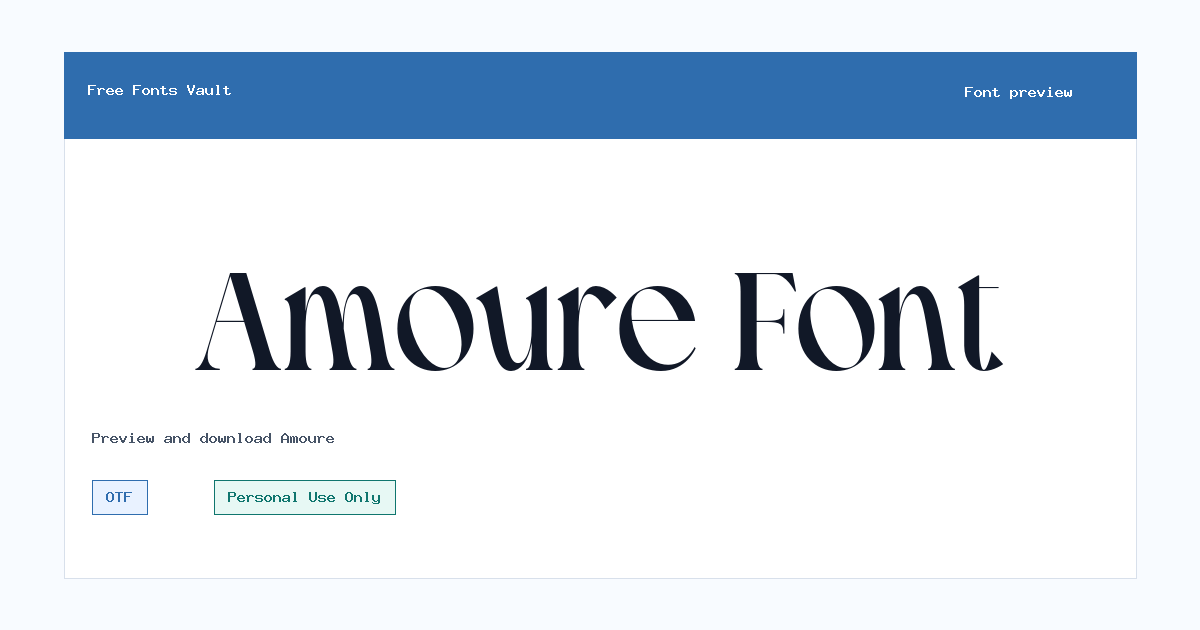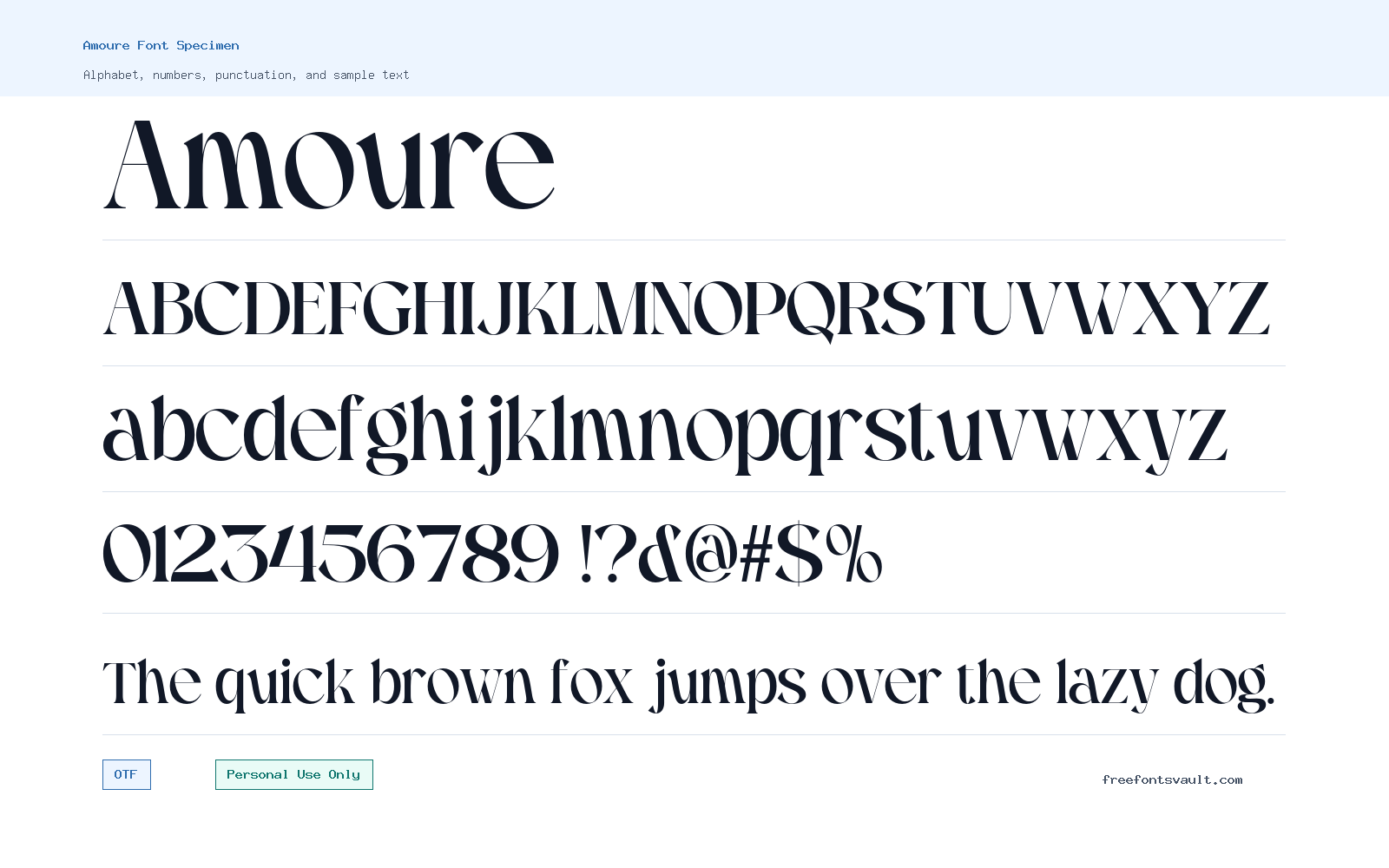
Amoure
Amoure font.
Amoure is a serif font family with regular and italic styles, made for personal-use projects where you want a refined, expressive text style without losing the structure of a classic serif.
About Amoure Font
Amoure has the feel of a display-friendly serif: shaped enough to stand out in headings, invitations, mood boards, and short branding mockups, but still familiar enough for readers to recognize the letterforms quickly. The family includes a regular style and an italic style, both in OTF format, so you can test upright text beside a more flowing companion style. Use the regular cut for names, titles, and short lines that need a clean serif presence. Use the italic when you want a softer accent, a pull quote, a signature-like detail, or a small line of supporting text.
Because only regular and italic 400-weight files are listed, Amoure is best treated as a light display family rather than a full text system. It may work well for wedding stationery drafts, social graphics, quote cards, packaging concepts, personal logos, blog headers, and decorative title treatments. For longer reading, pair it with a neutral sans serif or a simpler text serif and keep Amoure for the headline or highlight. Before downloading, type your own words in the preview and check spacing, punctuation, numerals, accented characters, and uppercase combinations. Display serifs can look beautiful in a sample word but behave differently in real names, dates, prices, or multi-line layouts.
- Regular and italic serif styles for upright titles and softer accent text
- Personal invitations, quote graphics, mood boards, and decorative headings
- Short logo drafts, blog titles, packaging mockups, and social media visuals
For the best result, start with short text in the live preview: a name, two-word title, date, or sample headline. Try the regular style first, then add the italic only as a contrast element. Increase letter spacing slightly if a heading feels tight, and avoid using the italic for long paragraphs. If you plan to use the design beyond personal testing, confirm the license before release or sending final files.
What is Amoure best used for?
It is best for short, expressive text such as invitations, headings, quote graphics, personal branding drafts, and decorative titles.
Can I use Amoure for body text?
You can test it, but it is safer for short display text. For long paragraphs, pair it with a simpler reading font.